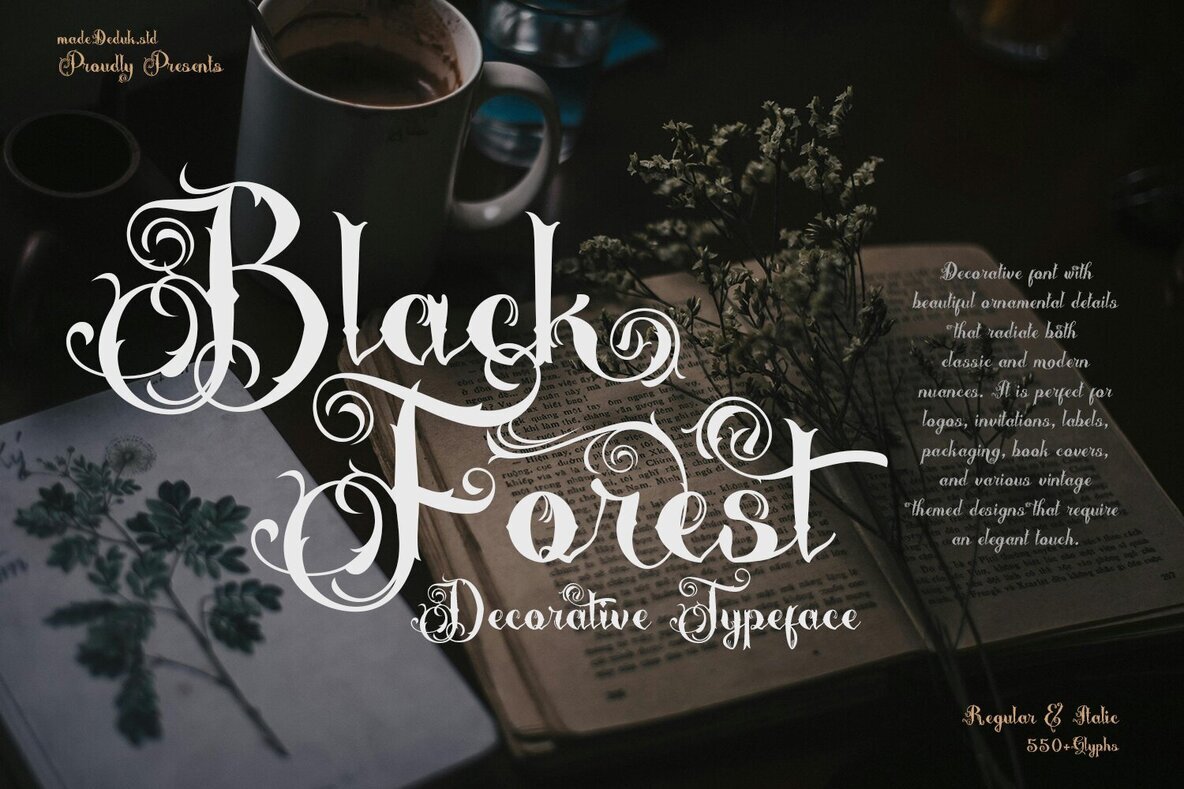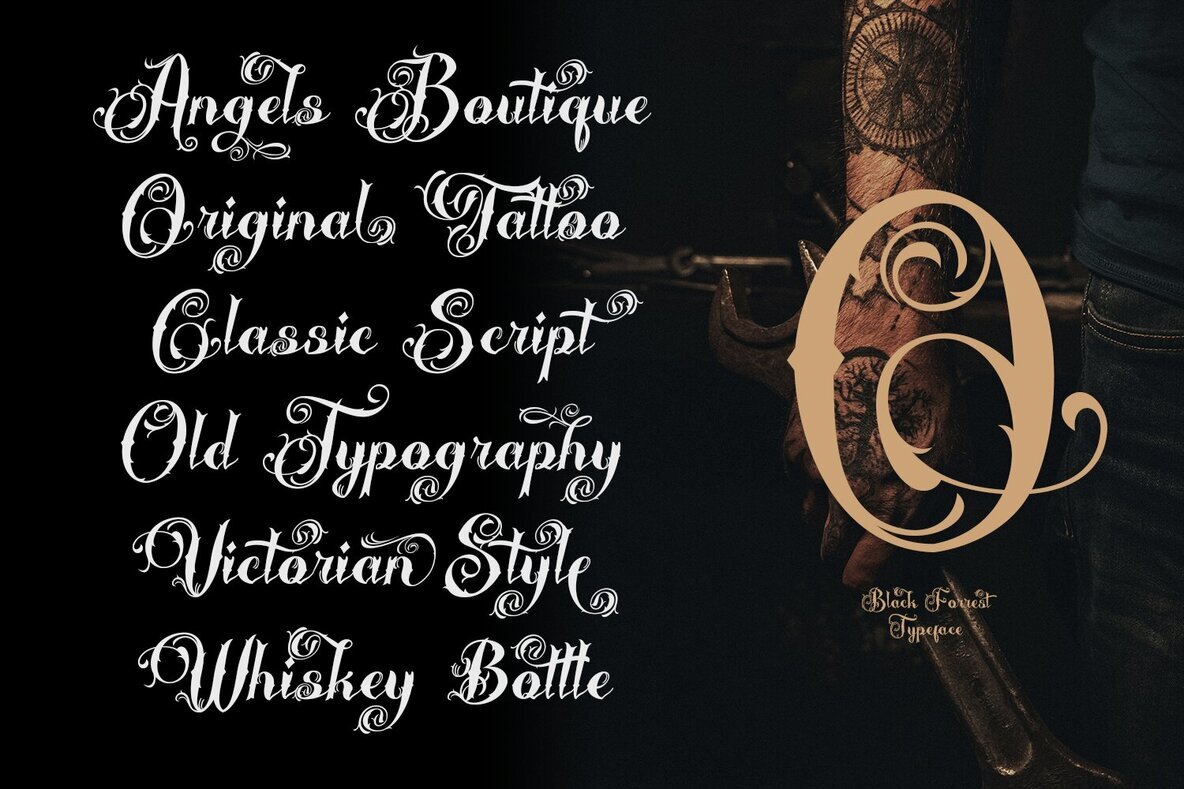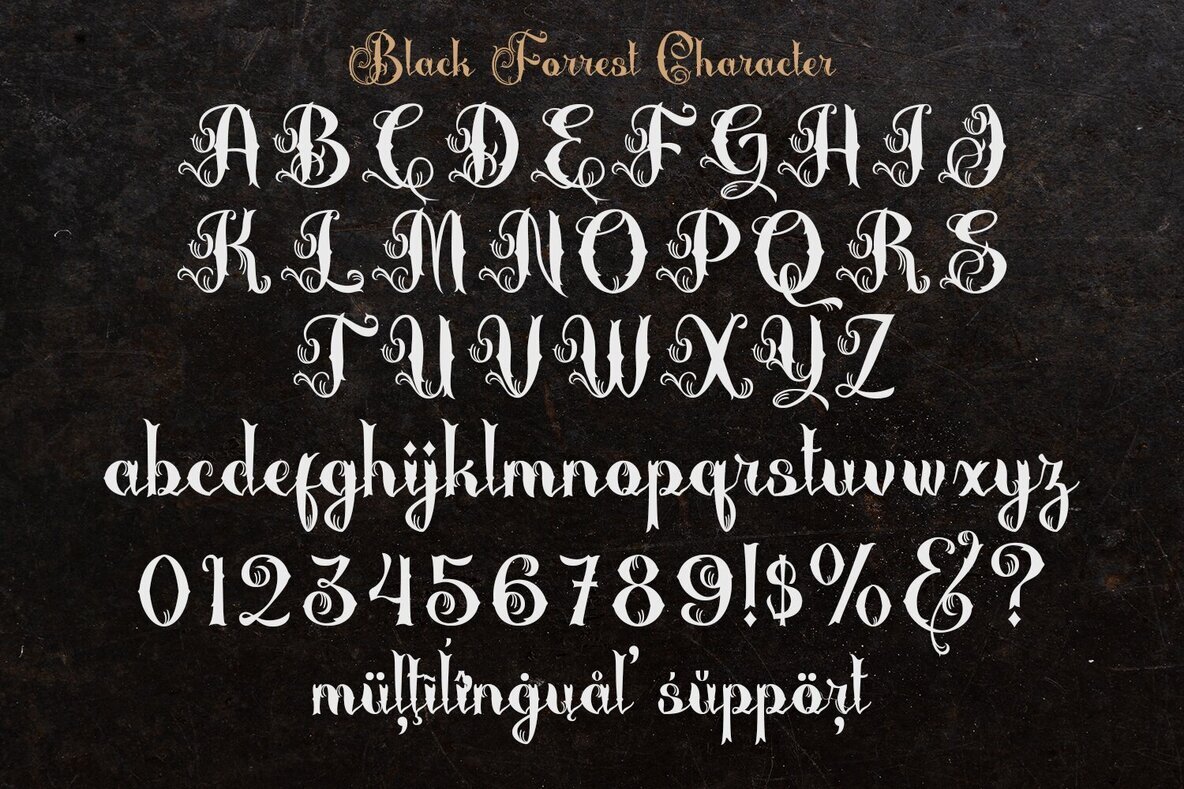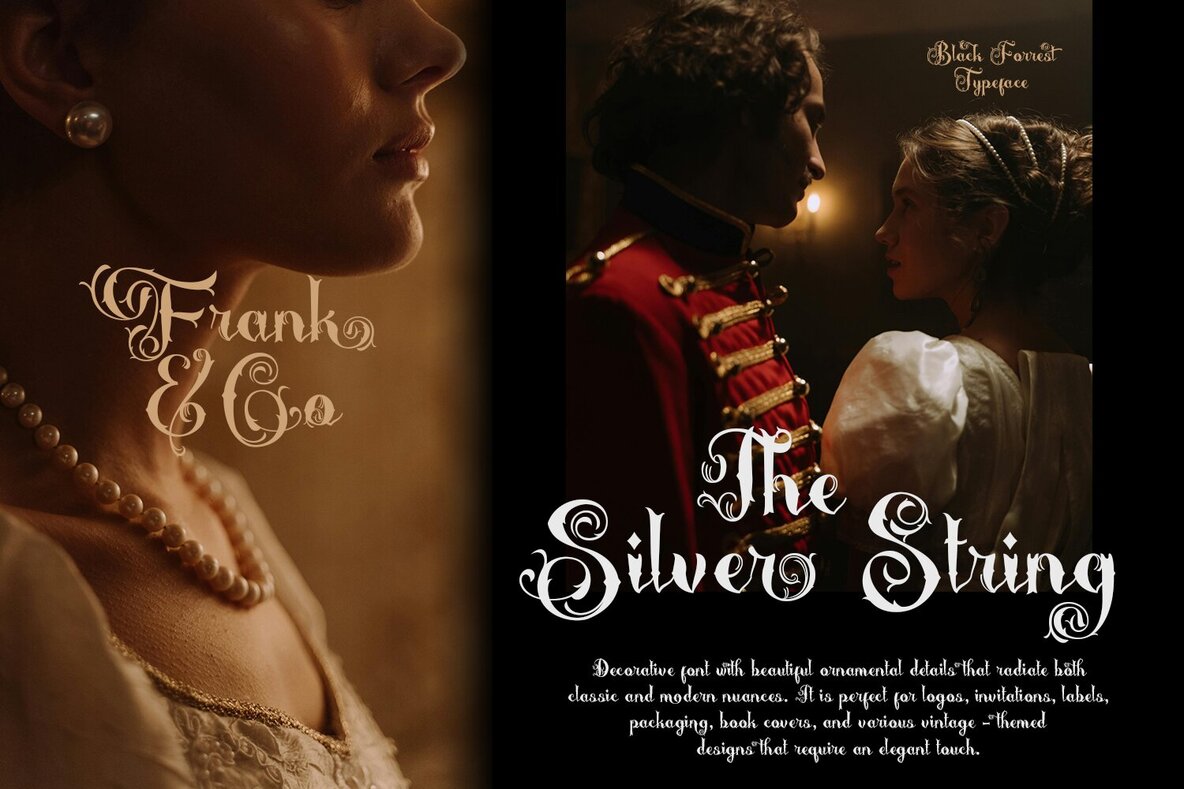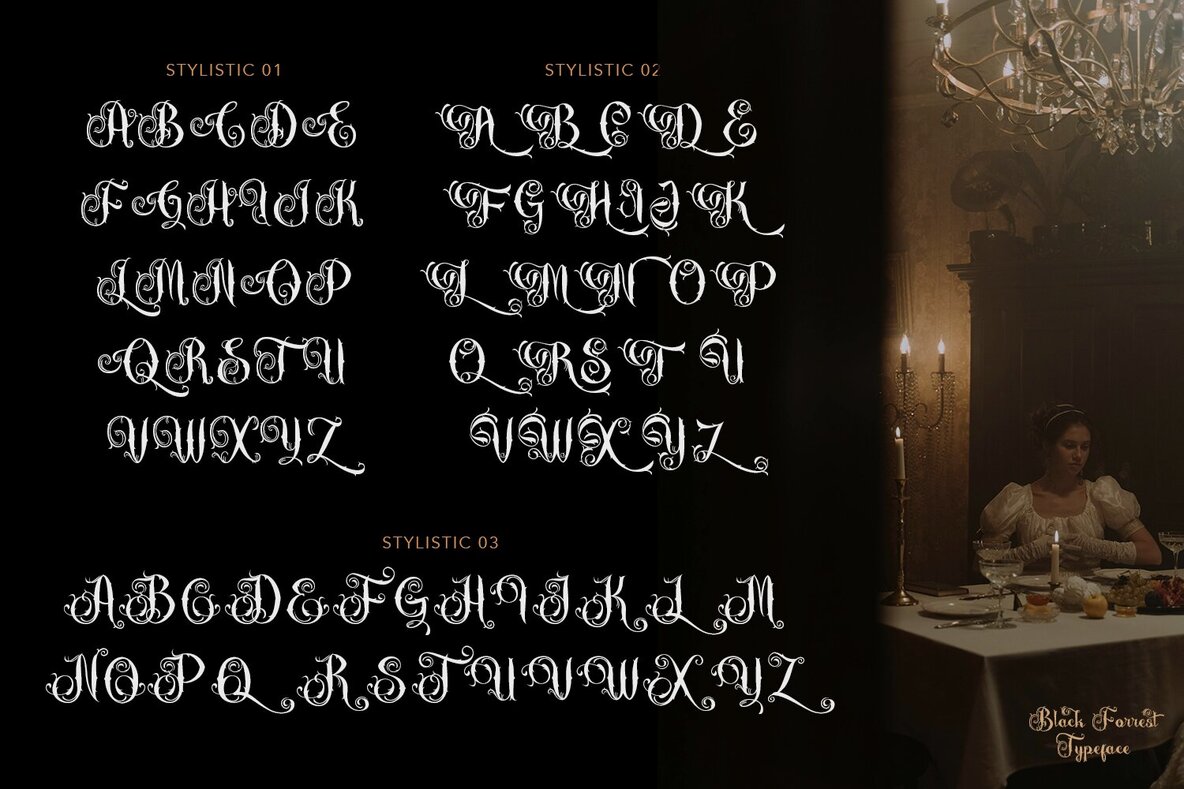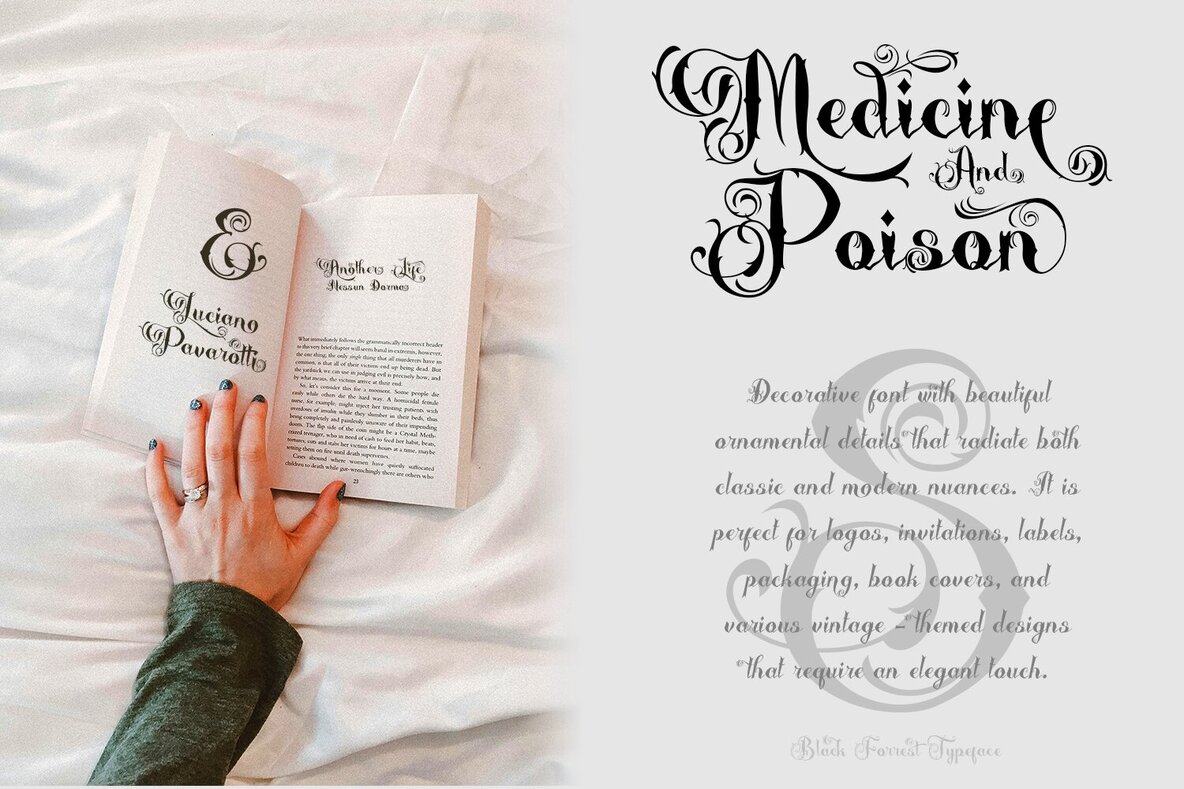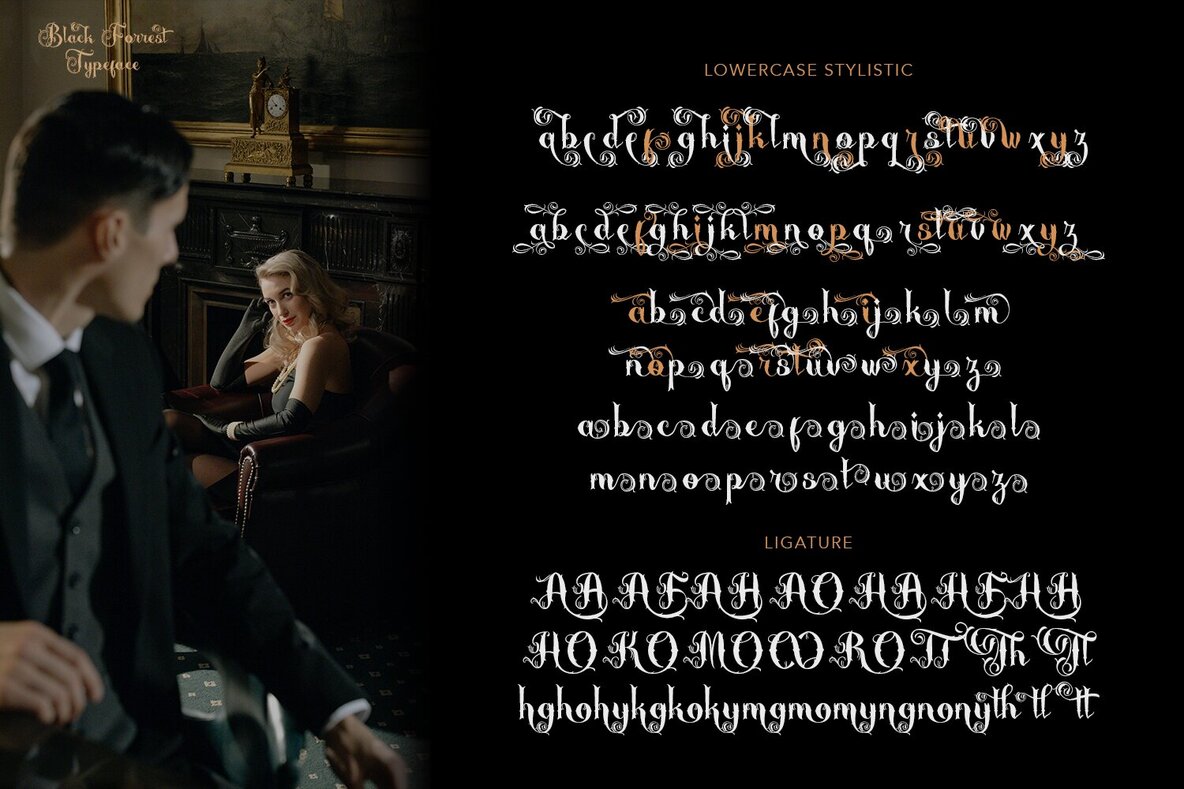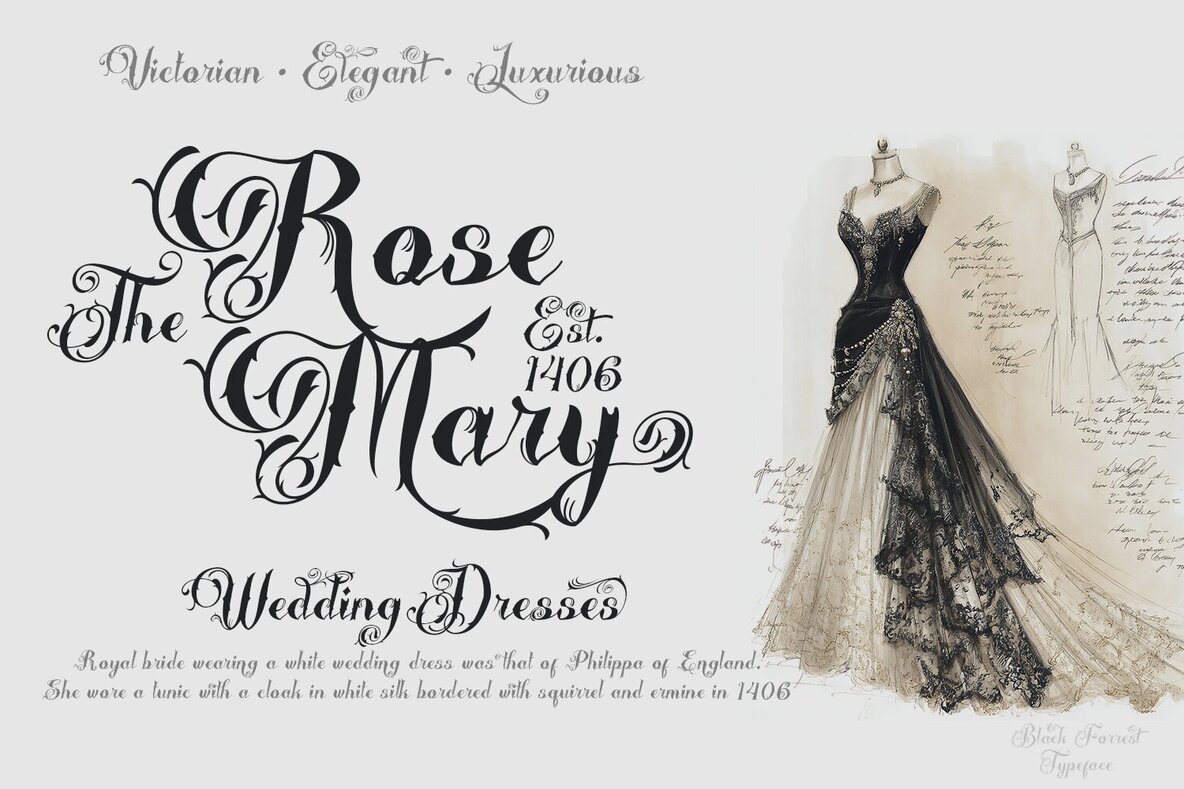
Black Forrest Font
Black Forrest stands out with ornamental details inspired by classic and early 1900s letterforms. This decorative typeface blends vintage script elegance with traditional fancy lettering, striking a balance between sophistication and old-world charm. Its bold character is well-suited for designers aiming to create a memorable impact. Black Forrest works beautifully across a range of applications where a luxurious, vintage aesthetic is preferred. Choose Black Forrest to bring refined detail and historical flair to your next project.Black Forrest Decorative Font